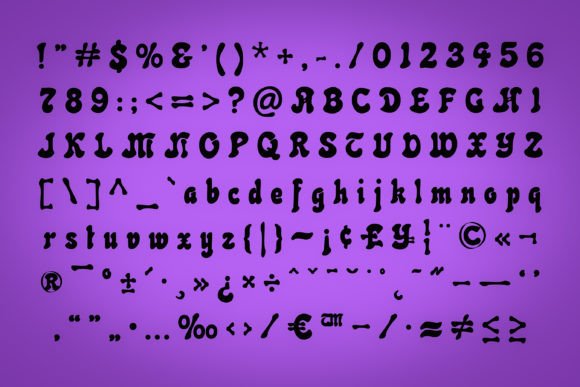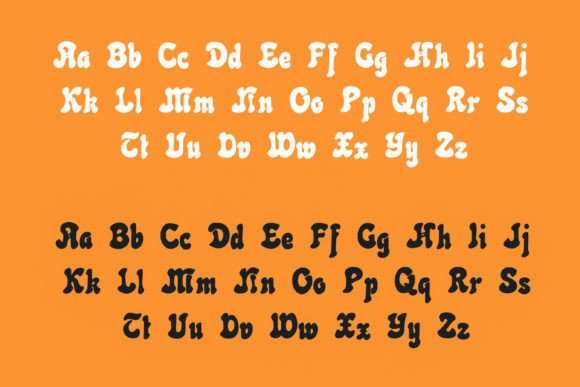
Exquisite Font
About Exquisite Font
Exquisite is a captivating retro handwritten script font featuring charming rounded edges. Infused with a groovy and whimsical character, this font is a valuable addition to your font library, as it possesses the ability to elevate and enrich any creative project.
This font’s retro aesthetics and rounded design elements give it a unique personality that sets it apart from more traditional typefaces. It carries an air of nostalgia while also exuding a sense of playful creativity, making it an ideal choice for a wide range of design applications.
Whether you’re working on posters, branding materials, vintage-themed projects, or anything in between, Exquisite brings an element of uniqueness and character that can transform your creations into eye-catching and memorable works of art.
In summary, Exquisite is not just a font; it’s a creative tool that adds a touch of retro charm and whimsy to your designs. Its rounded edges and groovy style make it a versatile asset that has the potential to breathe life and character into your creative endeavors. Embrace Exquisite to enhance your font library and unlock new creative possibilities.